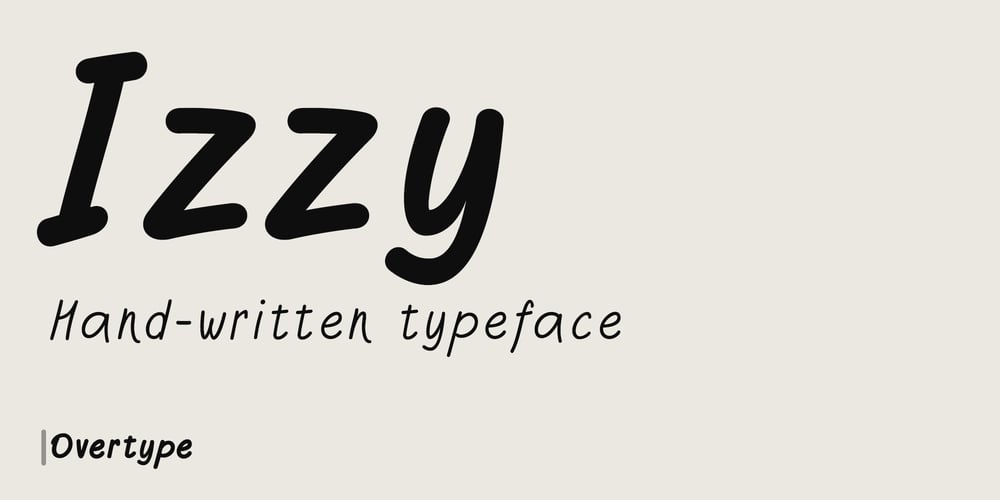
OT Izzy
OT Izzy font
OT Izzy Font Family was designed by Evgeniy Agasyants and published by Overtype. OT Izzy contains 4 styles and family package options. The Izzy handwritten font is called as simple as possible. Just write the text. Thin, thick — take it and write.